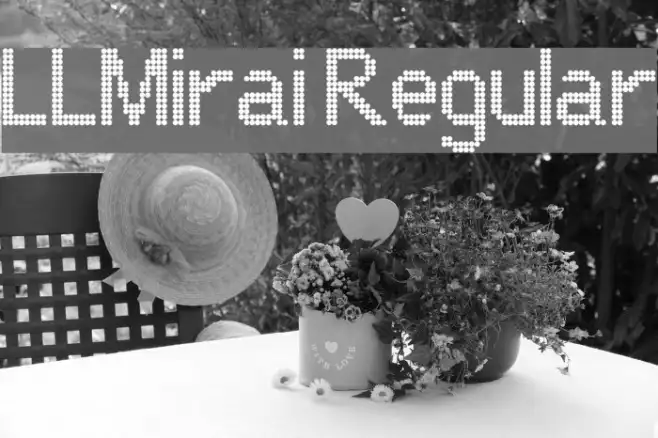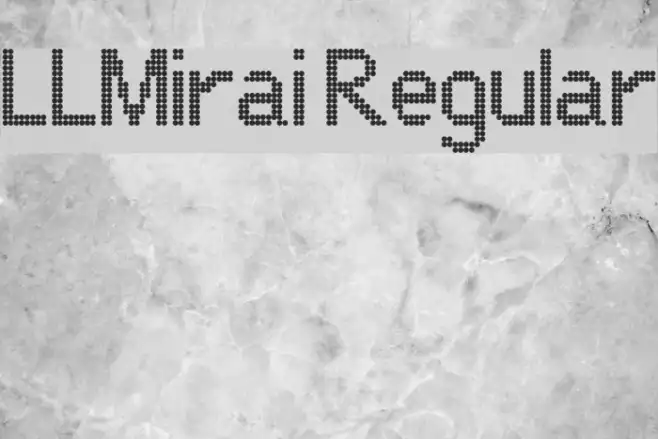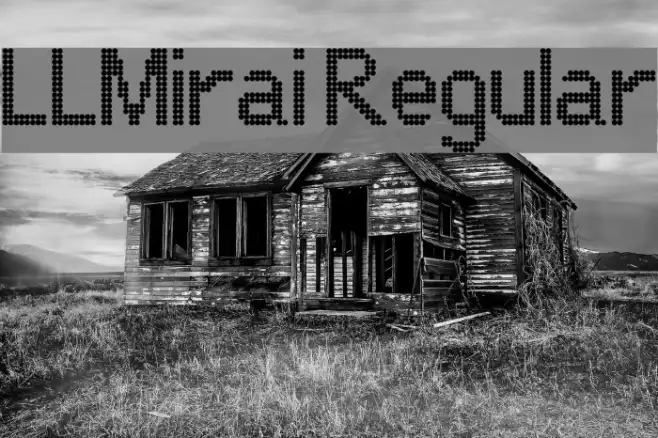
LLMirai Regular Font
LLMirai Regular Description
This font features a unique design where each character is composed of small, evenly spaced dots, creating a digital and modern appearance. The characters maintain a consistent size and shape, offering a uniform look across both uppercase and lowercase letters, as well as numbers and special symbols. The dotted style gives it a playful yet structured feel, making it stand out in various design contexts. Its geometric precision and uniformity make it suitable for projects that require a contemporary and tech-inspired aesthetic.
| Use Case | Headlines, Logos, Digital displays |
| Proposed Projects | Ideal for digital displays, tech-themed designs, modern art projects, and creative branding. |